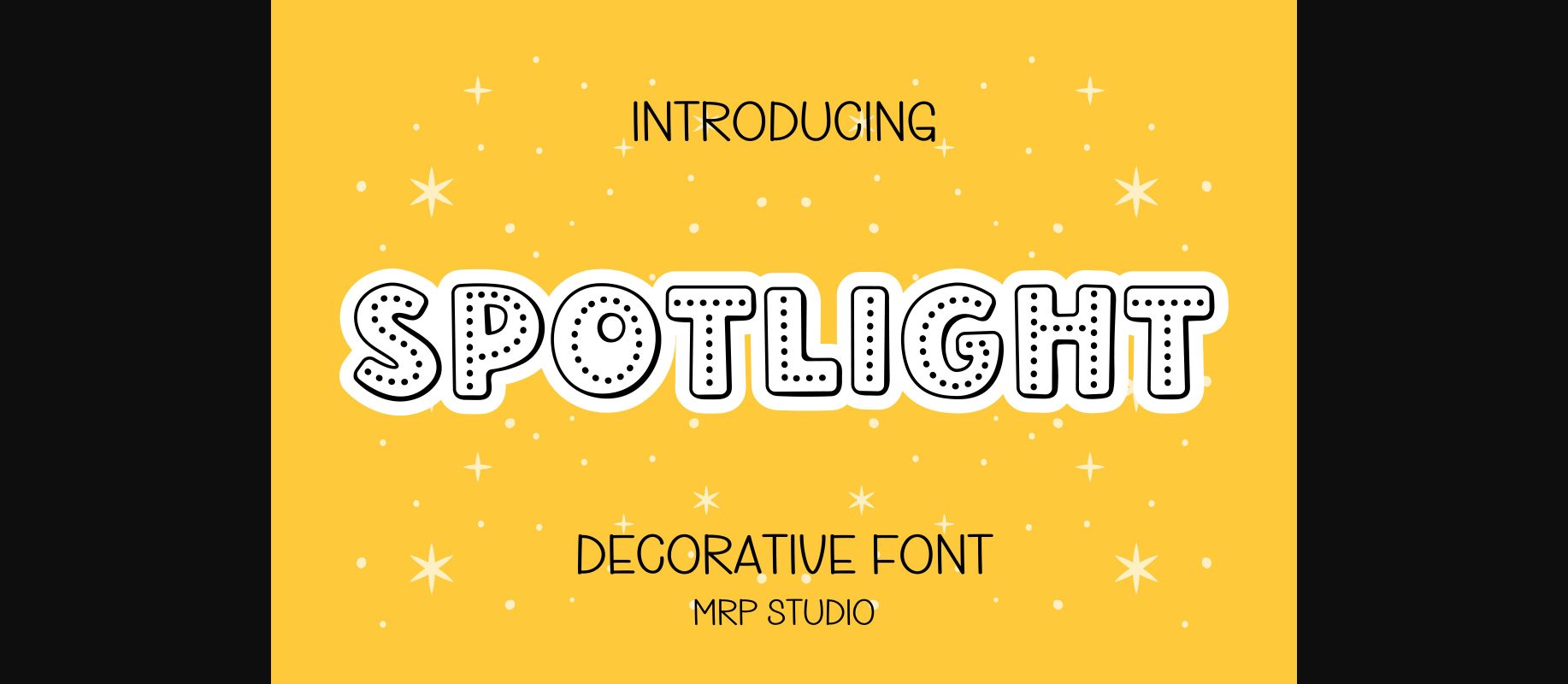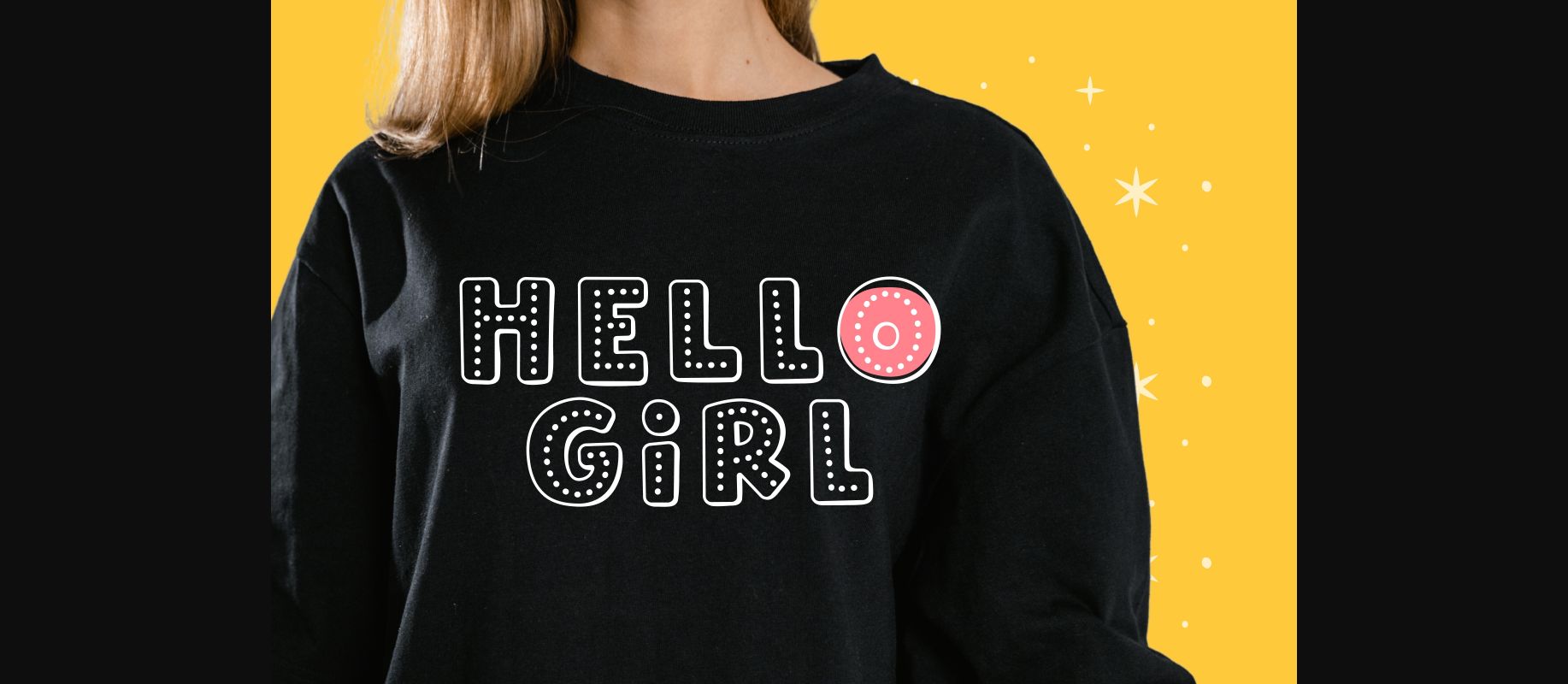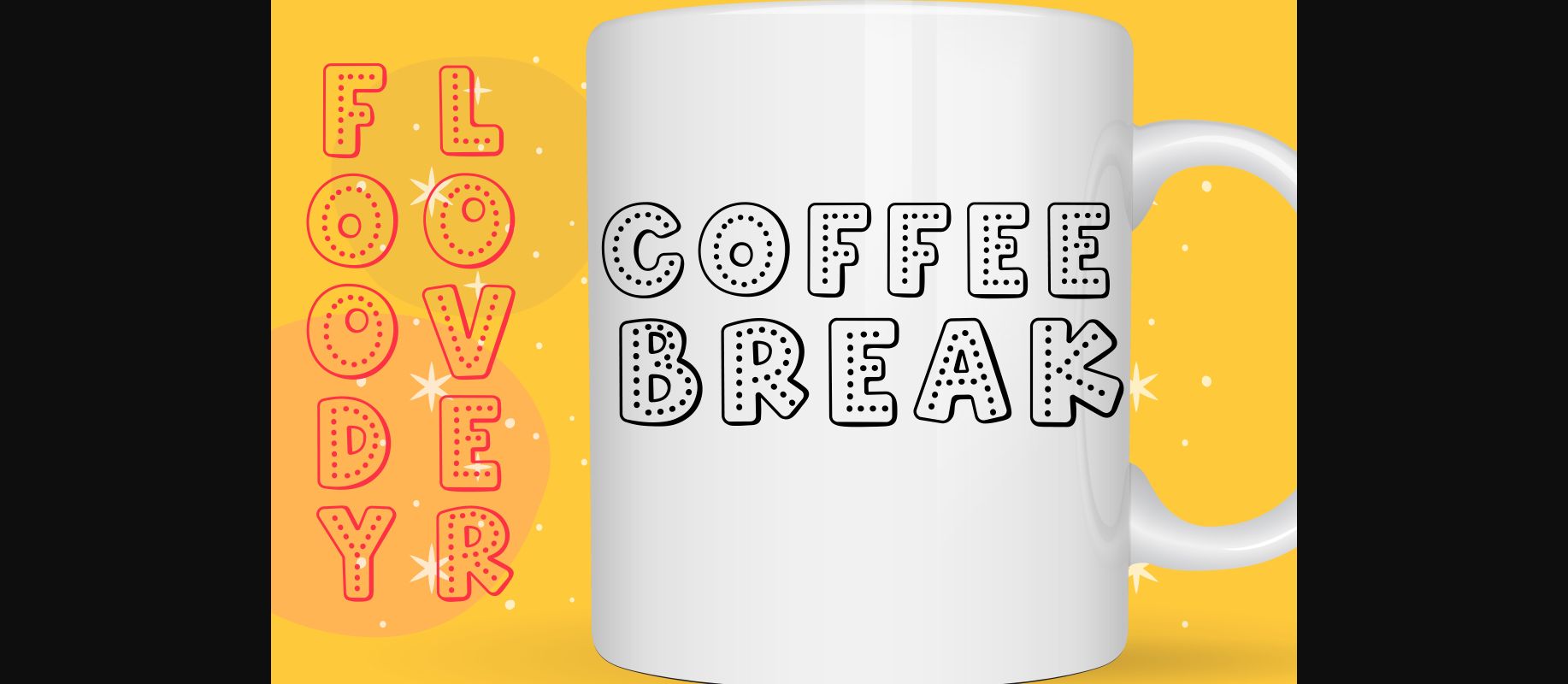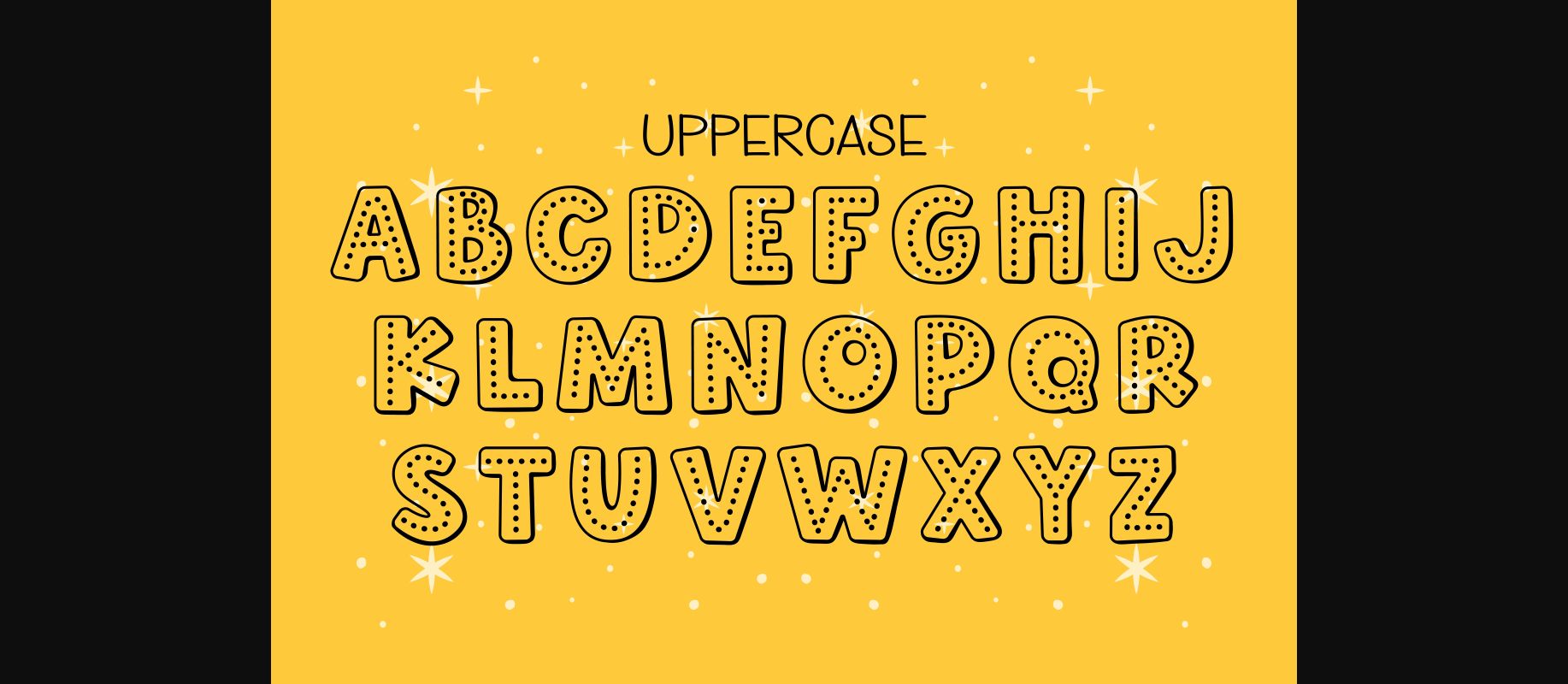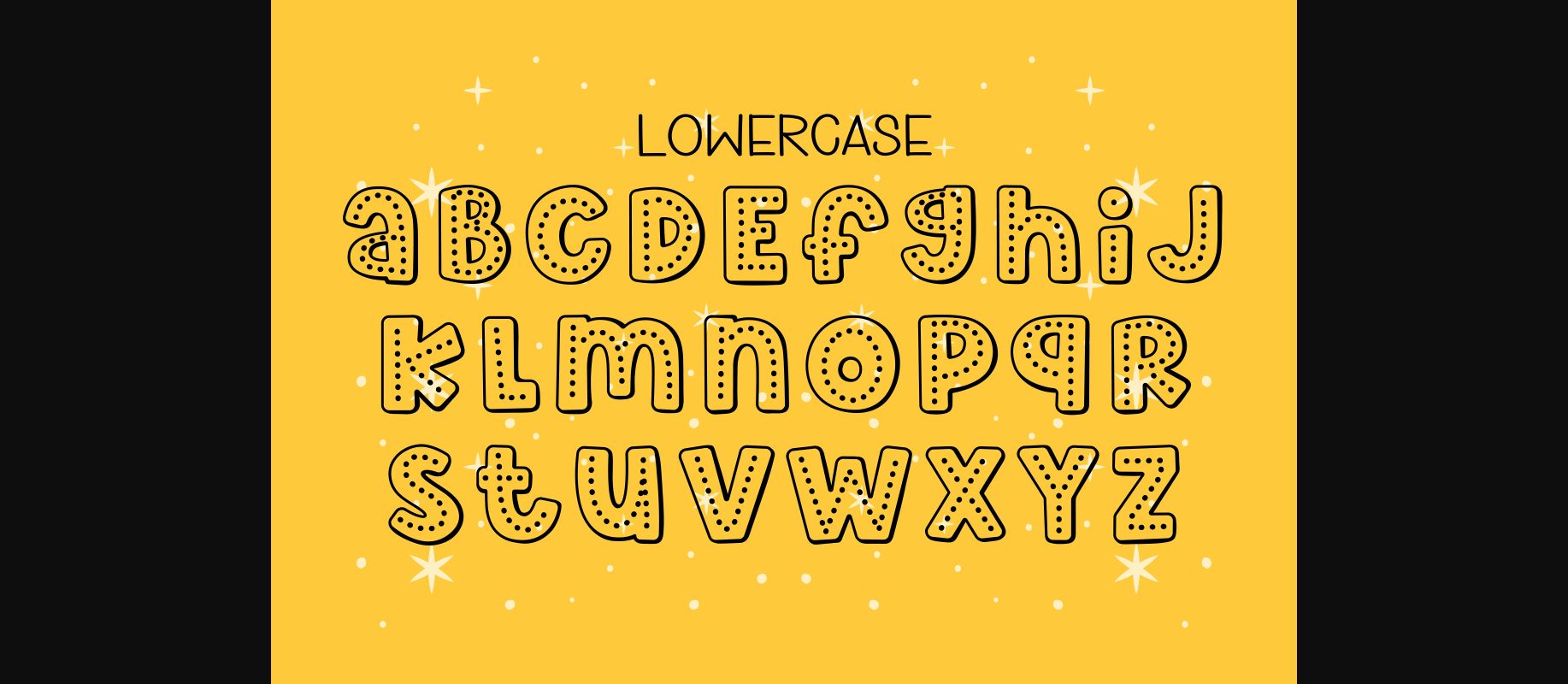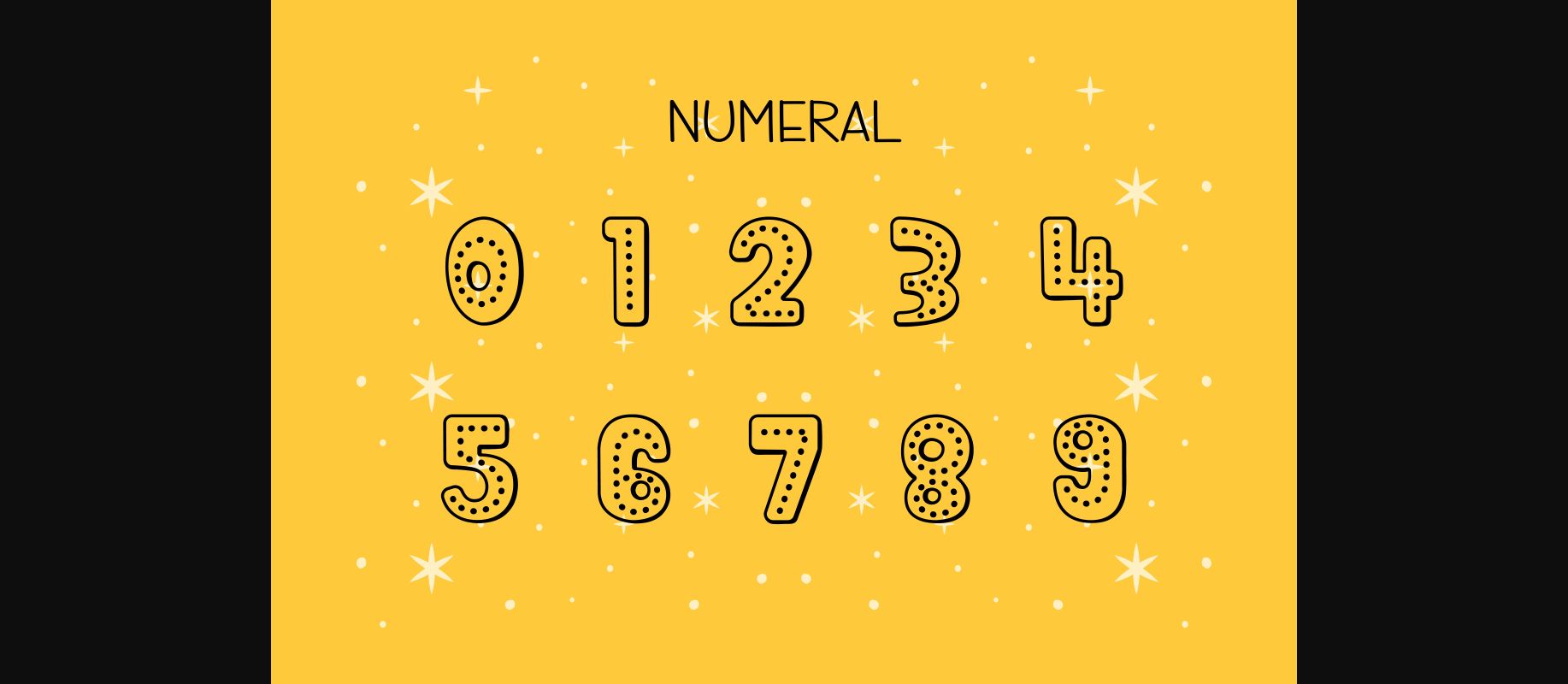
HomeDecorative FontsSpotlight Font Decorative Fonts Spotlight Font FacebookXPinterestWhatsApp 1 of 10 ... Spotlight Font Poster 2... Spotlight Font Poster 3... Spotlight Font Poster 4... Spotlight Font Poster 5... Spotlight Font Poster 6... Spotlight Font Poster 7... Spotlight Font Poster 8... Spotlight Font Poster 9... Spotlight Font Poster 10... About Spotlight Font Spotlight is designed in a cute and adorable decorative font style. It is suitable for child-related projects such as back to school, birthday party decoration, invitations, posters and so much more! DOWNLOAD NOW People also explored Rainbow December Font Paperboard Horitzontal Mockup Brook Bright Font Mellody Font Rissya Font Handsome Devil Font Jasmitha Script Font Husein Script Font Love is a Many Complicated Thing Font 254 0 TagsSpotlight Font Previous articleCamping FontNext articleHalloween Font LEAVE A REPLY Cancel reply Comment: Please enter your comment! Name:* Please enter your name here Email:* You have entered an incorrect email address! Please enter your email address here Website: Save my name, email, and website in this browser for the next time I comment. Personal Use Free Good Luck Personal Use Free Read more about this font Kitchen Blue Personal Use Free Read more about this font Mallvirra Personal Use Free Read more about this font Qiwqiw Personal Use Free Read more about this font BLOG Free vs Paid Fonts: Why Investing in Premium Fonts Is Worth It Free vs Paid Fonts: Why Premium Fonts Are Worth It in 2025 The debate of free vs paid fonts continues in the design world. While... Top 7 Google Fonts Alternatives for Faster and Privacy-Friendly Web Design (2025) Exploring Font Trends Best Fonts for T-Shirt Design – Top 2025 Picks